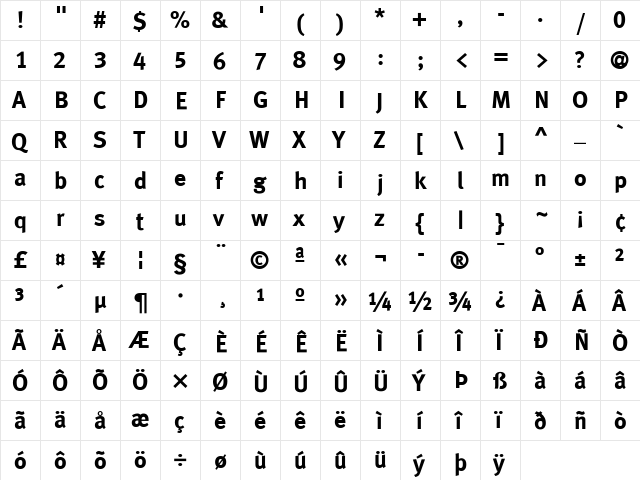
MetaKorrespondenz Bold
| Foundry | MetaDesign: Erik Spiekermann, . Published by FontShop International. FontFont Release |
Design Context for MetaKorrespondenz Typeface
MetaKorrespondenz offers clean, dependable letterforms without strong stylistic allegiance, making it a practical choice for designers who need flexibility. The heavy weight commands attention and anchors typographic hierarchies.